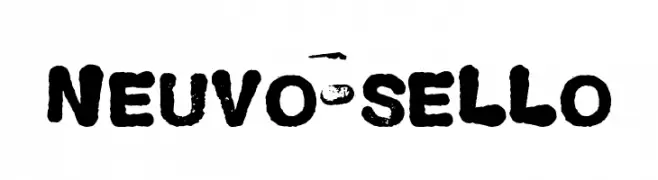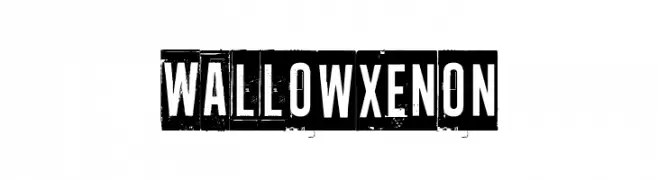
A bold, distressed font with a vintage, rubber stamp aesthetic.
A bold, distressed font with an industrial, stamped look.
An ancient script with wedge-shaped, angular characters used for monumental inscriptions.
A segmented, LED-inspired font with a technical and futuristic style.
A modern, digital-inspired font with an italic, segmented LED display style.